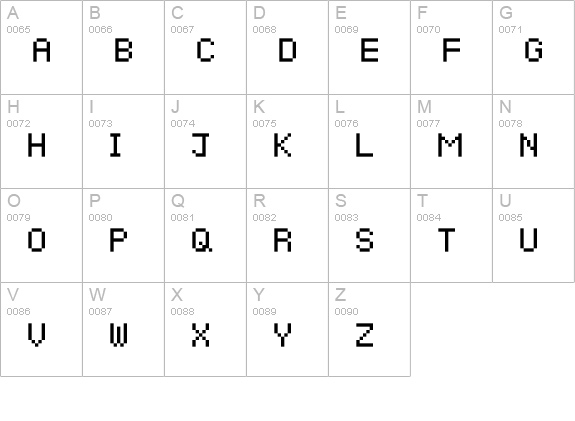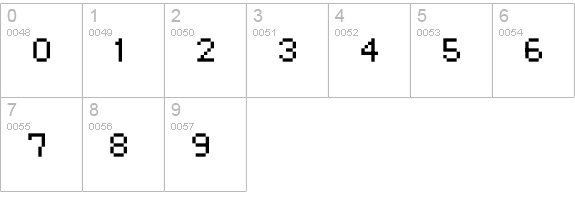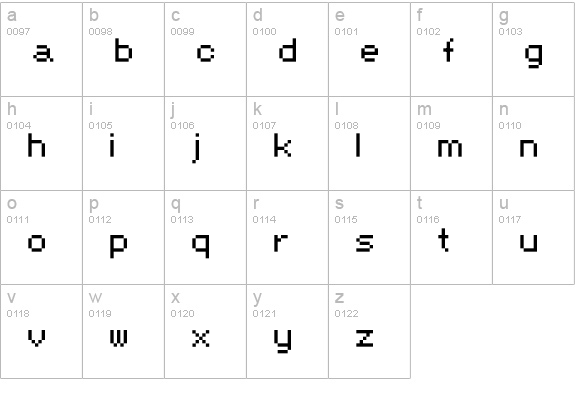
nontoxic_ang_3 Font Details
nontoxic_ang_3 font is a stunning display typeface that exudes elegance and sophistication. With its unique design and sleek lines, this font is perfect for creating eye-catching headlines, logos, and branding materials. The nontoxic_ang_3 font is versatile and can be used for a wide range of design projects, from print to digital. What sets this font apart is its modern and clean aesthetic, making it a great choice for contemporary designs. Whether you're working on a website, poster, or packaging, the nontoxic_ang_3 font will add a touch of professionalism and style to your work. Best of all, the nontoxic_ang_3 font is completely free to download at FontsMarket.com. This means you can easily access this beautiful font and use it in your projects without any cost. Don't miss out on this opportunity to enhance your designs with the nontoxic_ang_3 font's elegance and charm. Download it today and elevate your design game!